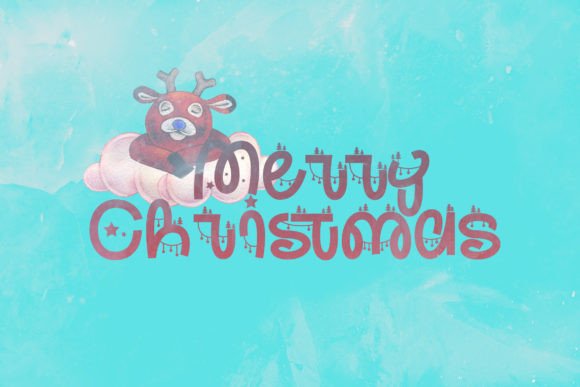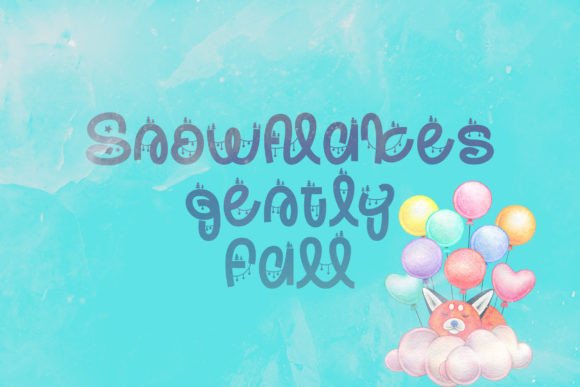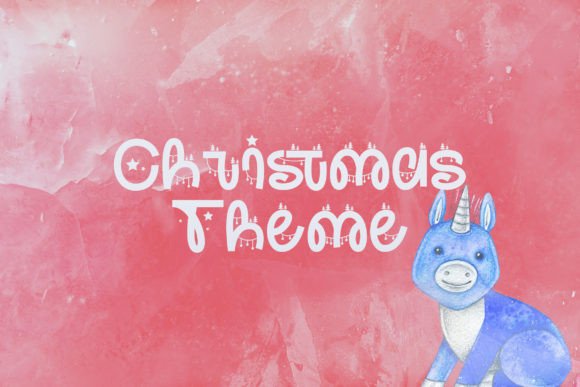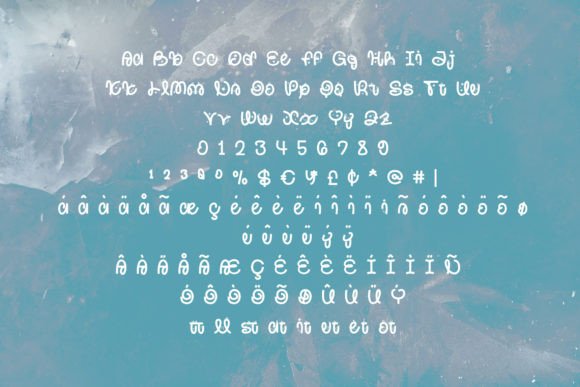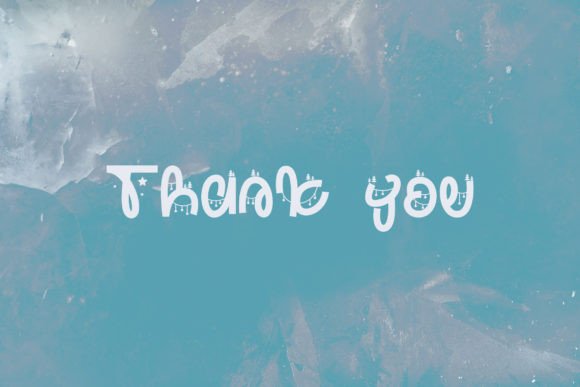
Introduction to Listmax Font
As a designer, have you ever found yourself stuck in a creative rut, searching for the perfect font to bring your project to life? Maybe you’re working on a holiday campaign and need a font that screams festive cheer. That’s where Listmax Font comes in – a high-quality, display font designed specifically for Christmas-themed projects.
With its transparent background and versatile design, Listmax Font is the perfect resource for designers looking to add a touch of holiday magic to their creative projects. Whether you’re working on a t-shirt design, branding materials, or social media graphics, this font is sure to impress. And the best part? It’s available for free download, making it an accessible design resource for designers of all levels.
Key Features of Listmax Font
- High-quality, modern design ideal for creative projects, presentations, and documents.
- Transparent background, allowing for easy customization and blending with any design.
- Professional-grade font, available in a range of sizes and resolutions, including 300 DPI and 600 DPI.
- Perfect for designers, artists, and writers seeking a high-quality, stylish font for their creative project.
- Comes in multiple styles and weights, offering flexibility and versatility in design applications.
Honest Review: Listmax Font
I recently stumbled upon the Listmax Font and was excited to give it a try. As a designer, I’m always on the lookout for high-quality fonts that can elevate my creative projects.
One of the things that I love about Listmax Font is its modern and sleek design. It’s perfect for titles and headings, and the transparent background makes it easy to overlay on top of other design elements. ✨
Here are some of the key features that I like about Listmax Font:
- Modern and sleek design
- Transparent background for easy overlay
- May not be suitable for very small text sizes
- Not as versatile as some other fonts
- May require some tweaking to get the right feel
Overall, I’m impressed with the Listmax Font and would definitely recommend it to designers who are looking for a modern and sleek font for their creative projects. With a little bit of tweaking, it can really shine and add a professional touch to your designs.
Tips for Getting the Most Out of Listmax Font
Use Listmax Font in conjunction with a transparent background to make your text stand out. Experiment with different font sizes and styles to create a unique look for your creative project. You can also use Listmax Font in combination with other design resources to create a cohesive and professional-looking design.
Listmax Font is a versatile font that can be used in a variety of creative projects, including brochures, flyers, logos, infographics, reports, and newsletters. It’s a great design resource for anyone looking to create a high-quality design with a transparent background.